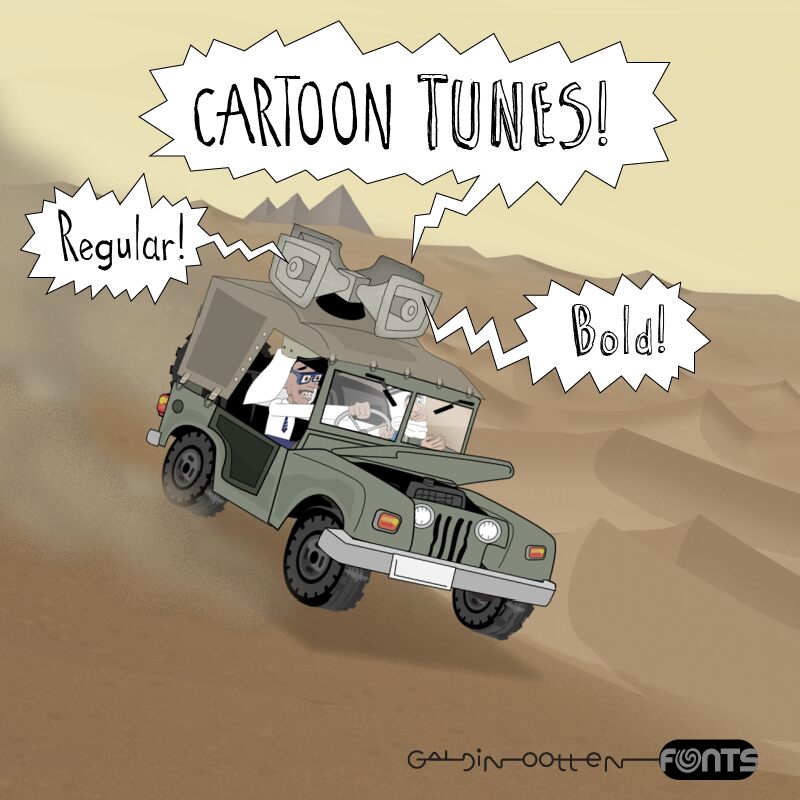
Cartoon Tunes Bold
Cartoon Tunes Bold, an expressive creation by Galdino Otten Fonts, breathes life into any design project with its whimsical charm. This light and condensed display font radiates playful energy, perfect for capturing attention with its hand-drawn and informal aesthetic. Each letter exudes personality, making it an ideal choice for children's books, animated series titles, or engaging classroom materials.
Its quirky style stands out in posters, comic strips, and logo designs where a friendly and approachable feel is essential. Cartoon Tunes Bold effortlessly combines fun and versatility, ensuring your message not only gets noticed but also brings a smile.